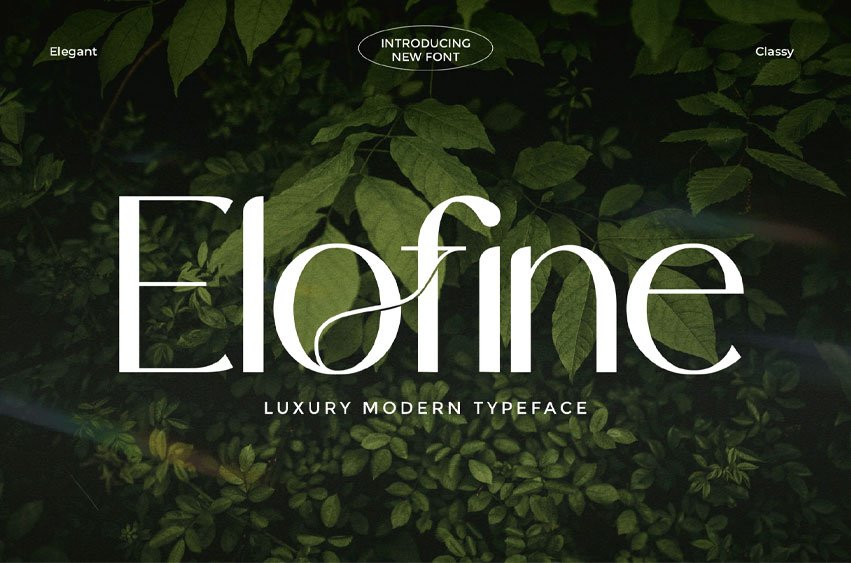
Elofine Font is a luxury modern typeface that blends sleek minimalism with refined elegance. Its clean lines, graceful curves, and distinctive letterforms exude sophistication, making it perfect for high-end branding, editorial design, and upscale product packaging. Elofine captures a timeless charm while maintaining a fresh, contemporary feel — ideal for creating statements that are both classy and memorable.